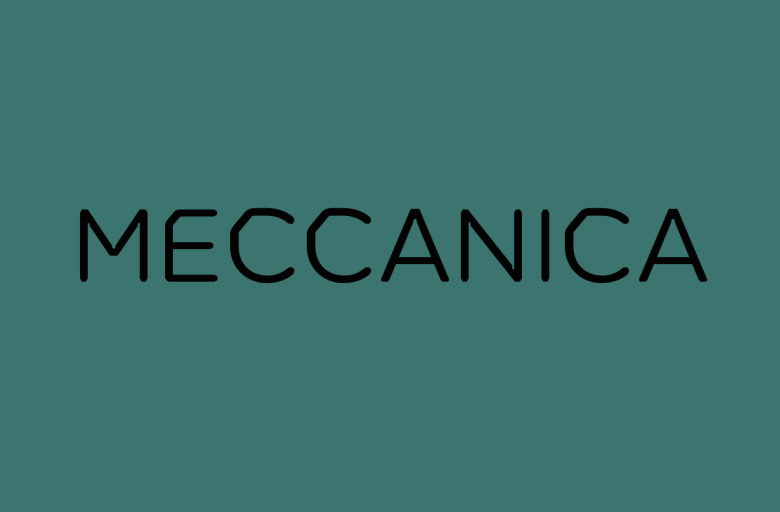
Meccanica Font Family
Introduce a family of sans serif fonts. This is a geometric typeface, inspired by the mechanical details, which will be suitable for many of your design projects. Introducing Meccanica Font Family! Meccanica was designed by Paulo Goode, and was published by Paulo Goode.
Meccanica is a geometric sans typeface like no other, its defining features include soft, chamfered edges, angular bowls and shoulders, angled/hexagonal terminals, and semi-hexagonal ink traps (in a nutshell).